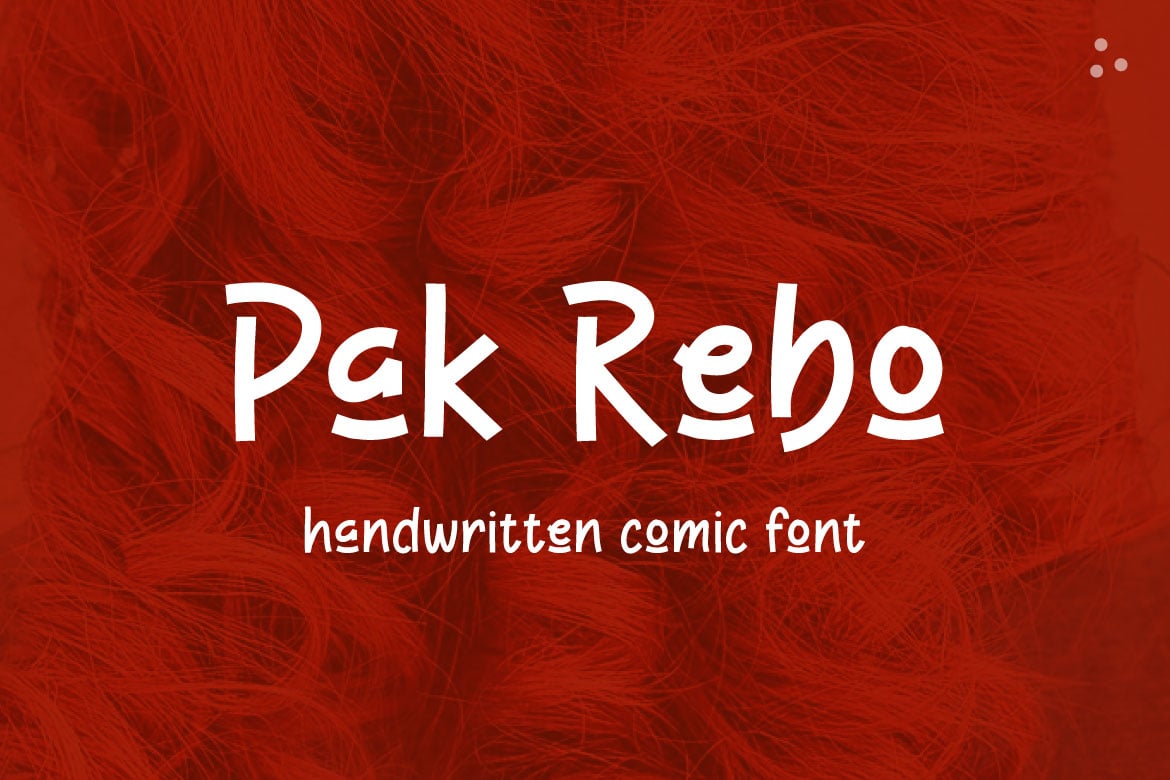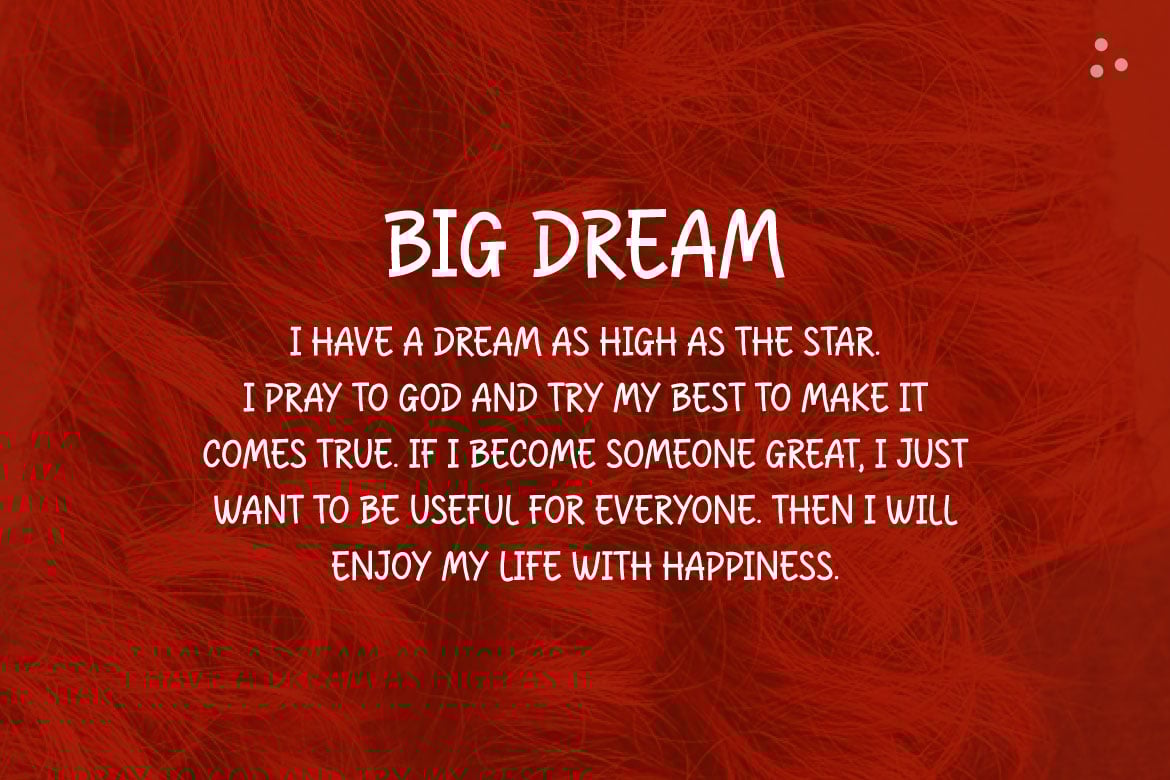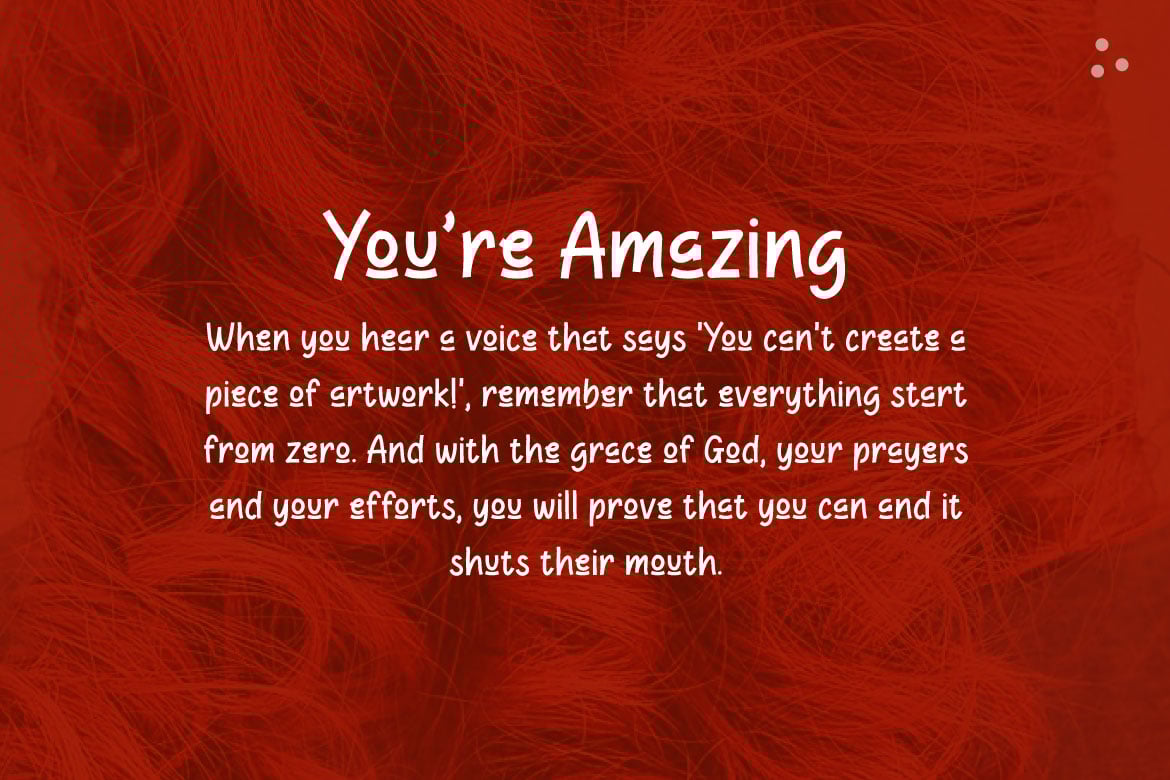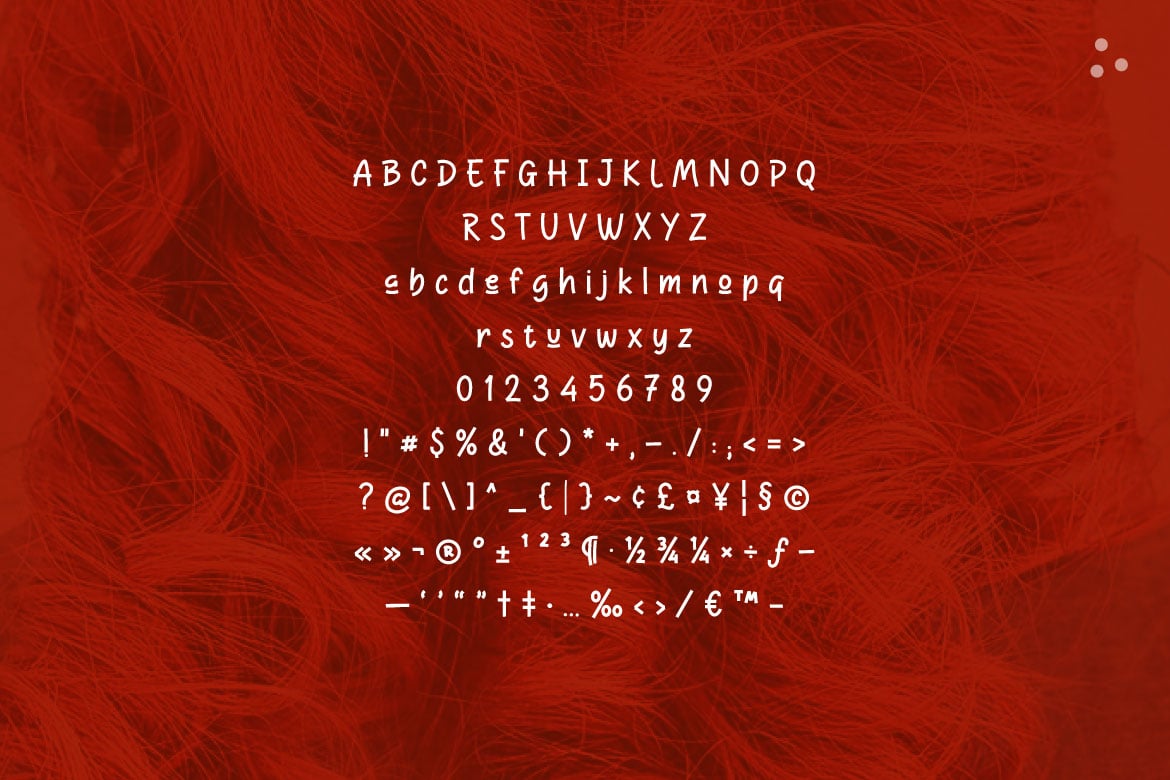
Pak Rebo – Comic Font
Introducing Pak Rebo – Comic Font, the perfect choice for adding a playful and energetic vibe to your creative projects! This bold and lively font captures the spirit of classic comic books, bringing a sense of excitement and adventure to your designs. Each character is meticulously crafted to ensure readability while maintaining a whimsical, hand-drawn feel.
Ideal for a wide range of applications, Pak Rebo – Comic Font is perfect for comic books, children’s books, posters, games, websites, and any project that needs a burst of fun and personality. Its versatile nature allows it to seamlessly fit into both digital and print mediums.
Bring your designs to life with the dynamic and vibrant Pak Rebo – Comic Font. Whether you’re creating a comic strip, designing a playful poster, or working on a children’s project, this font will add a touch of fun and excitement to your work.